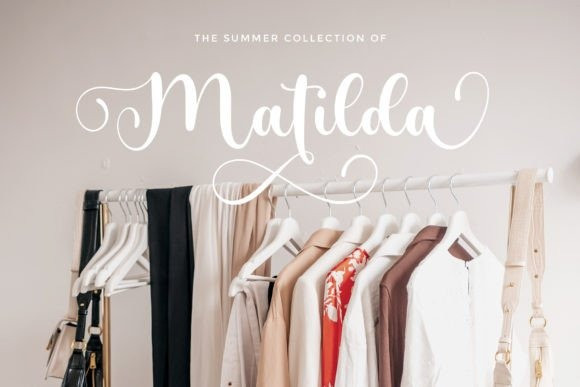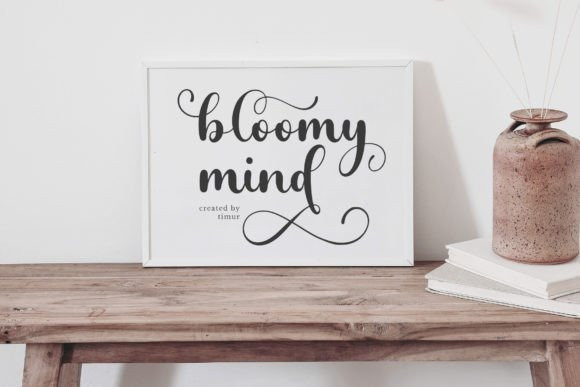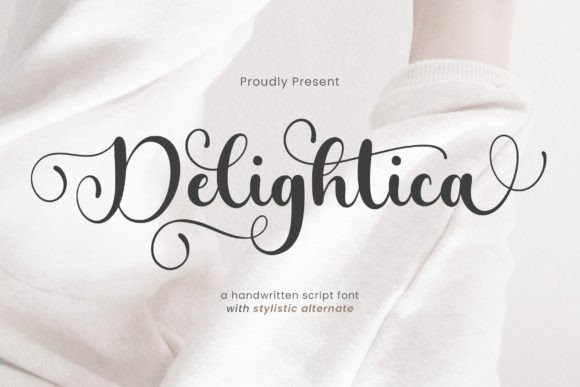
Delightica Font
Delightica Font A Handwritten Script Font , which was created with great care and specially created for you. Delightica is perfect for product packaging, branding project, megazine, social media, wedding, or just used to express words above the background.